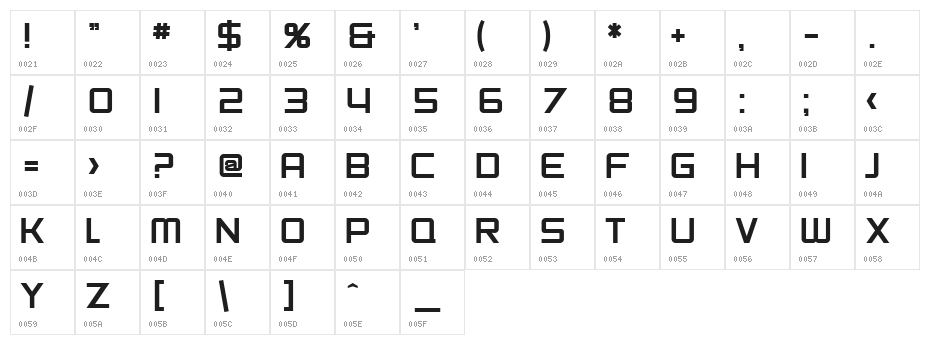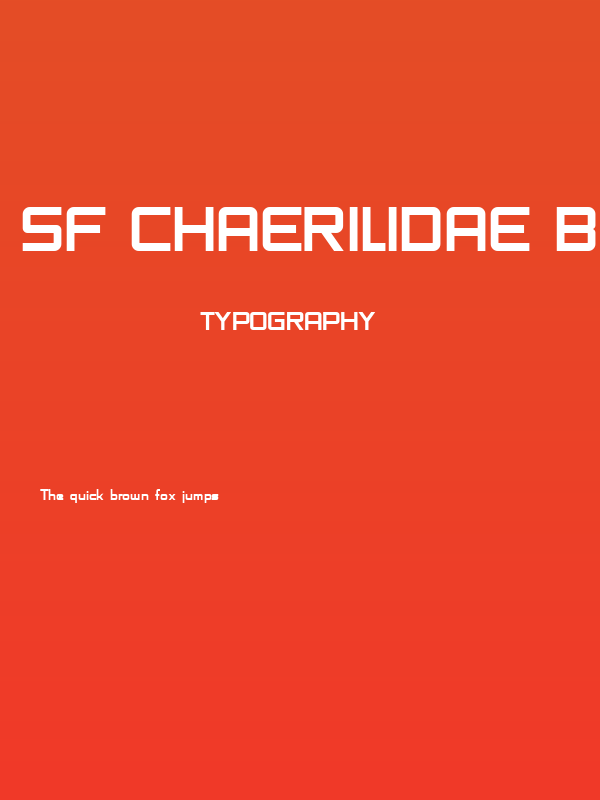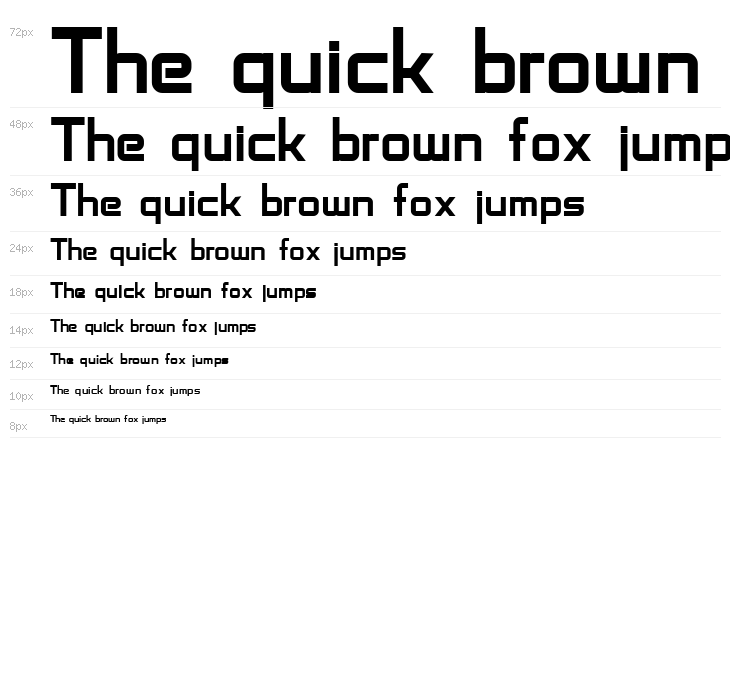
SF Chaerilidae Bold Font
SF Chaerilidae Bold Description
This font features a bold, geometric design with a modern and futuristic aesthetic. The characters are constructed with clean, straight lines and sharp angles, giving it a strong and assertive presence. The uppercase letters are uniform in height, while the lowercase letters maintain a consistent style that complements the uppercase. The numerals are equally bold and geometric, ensuring readability and visual impact. Special characters are designed to match the overall style, making this font versatile for various applications.
| Proposed Projects | Ideal for technology branding, futuristic designs, video game interfaces, and bold headlines. |